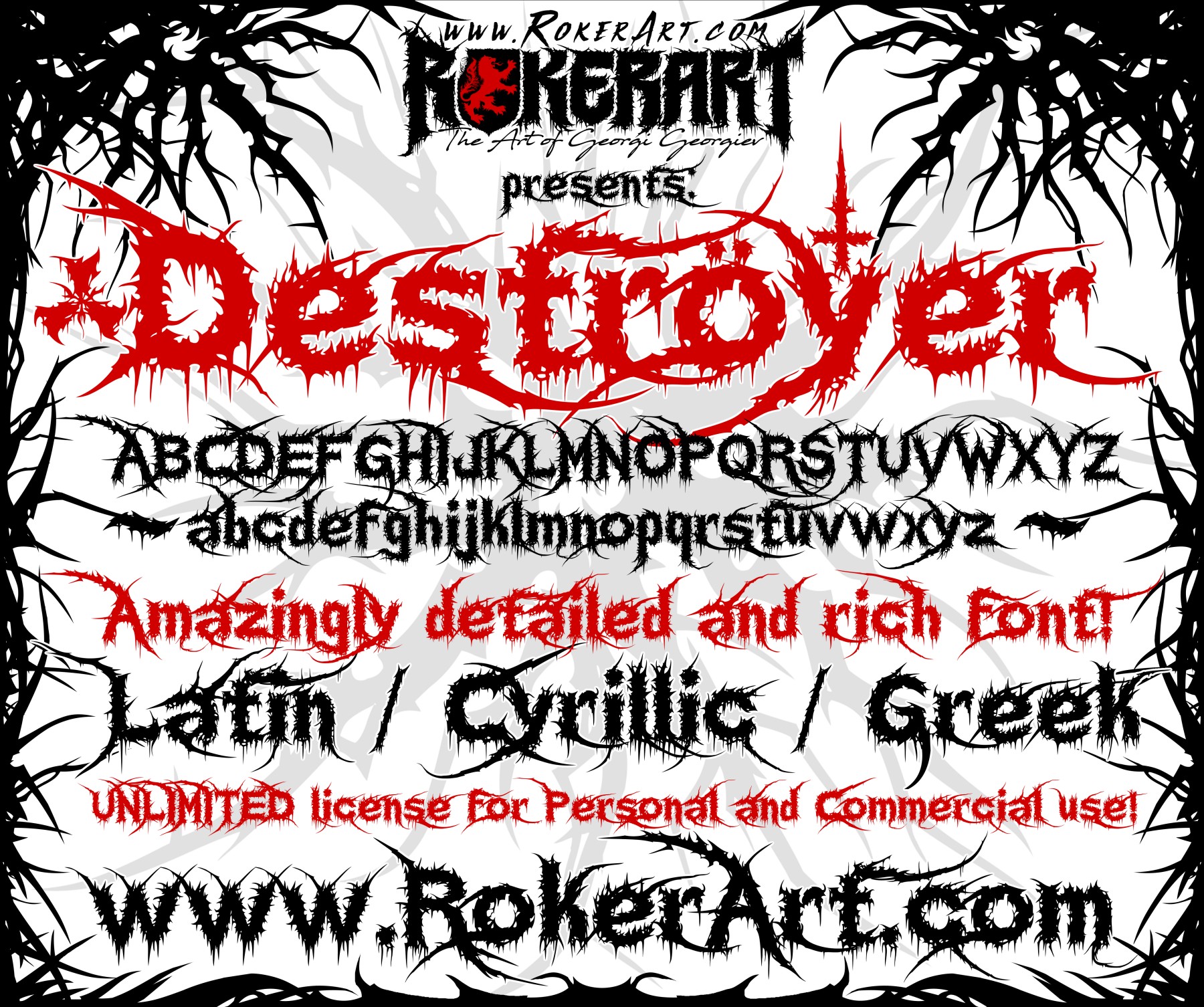
This is a rich and highly detailed font that contains Latin, Cyrillic and Greek characters! Visually, it is suitable to generate a logo for a Death Metal or Black Metal band, horror posters and images related to dark themes. You can easily and quickly make different captions and even use the font for lyrics, video content, book and magazine texts, labels, stickers, t-shirt prints and much, much more! It comes as a TrueType font and a webfont. The usage license is unlimited for personal and commercial use! Make a much better logo than a designer, the individual details of each letter open up to you a field of creativity that you will not find in other similar fonts on the Internet!